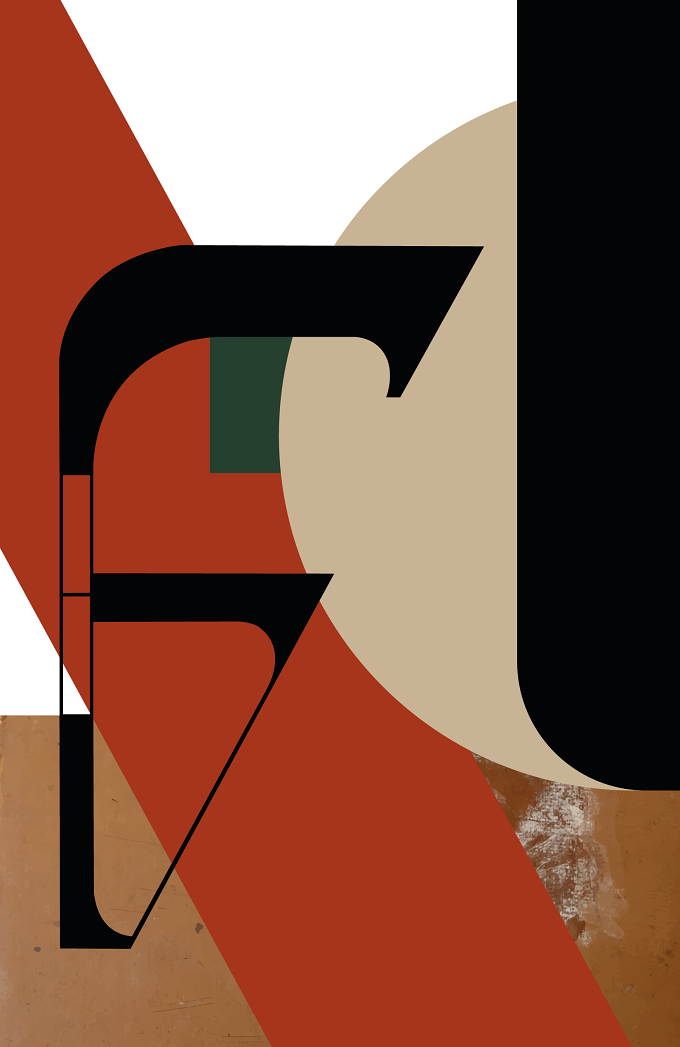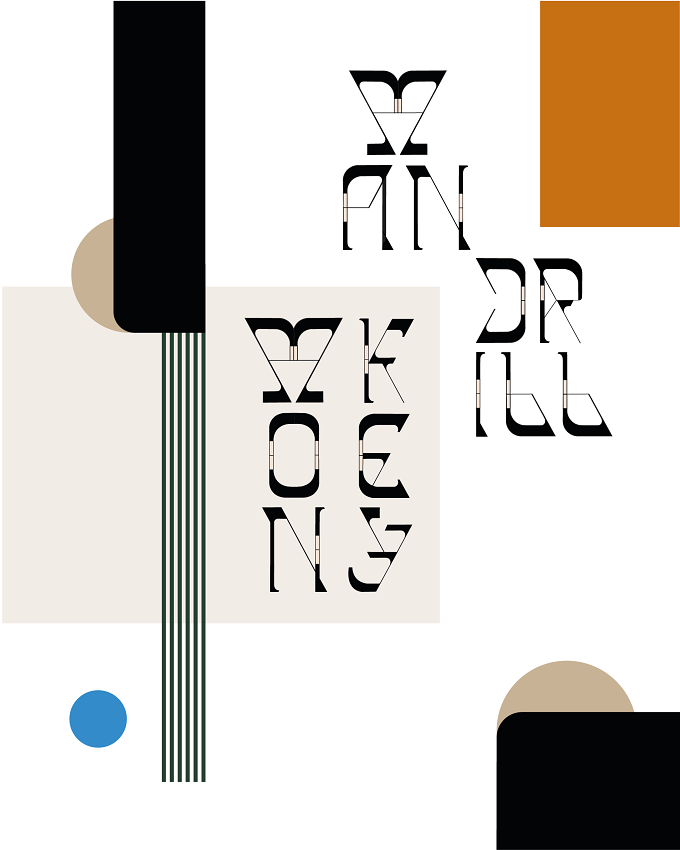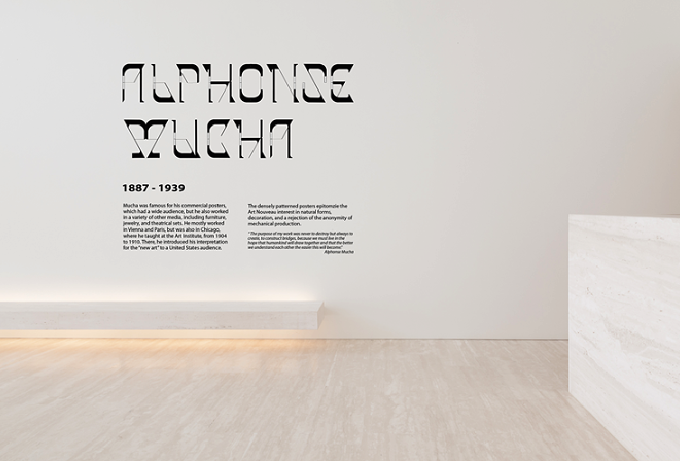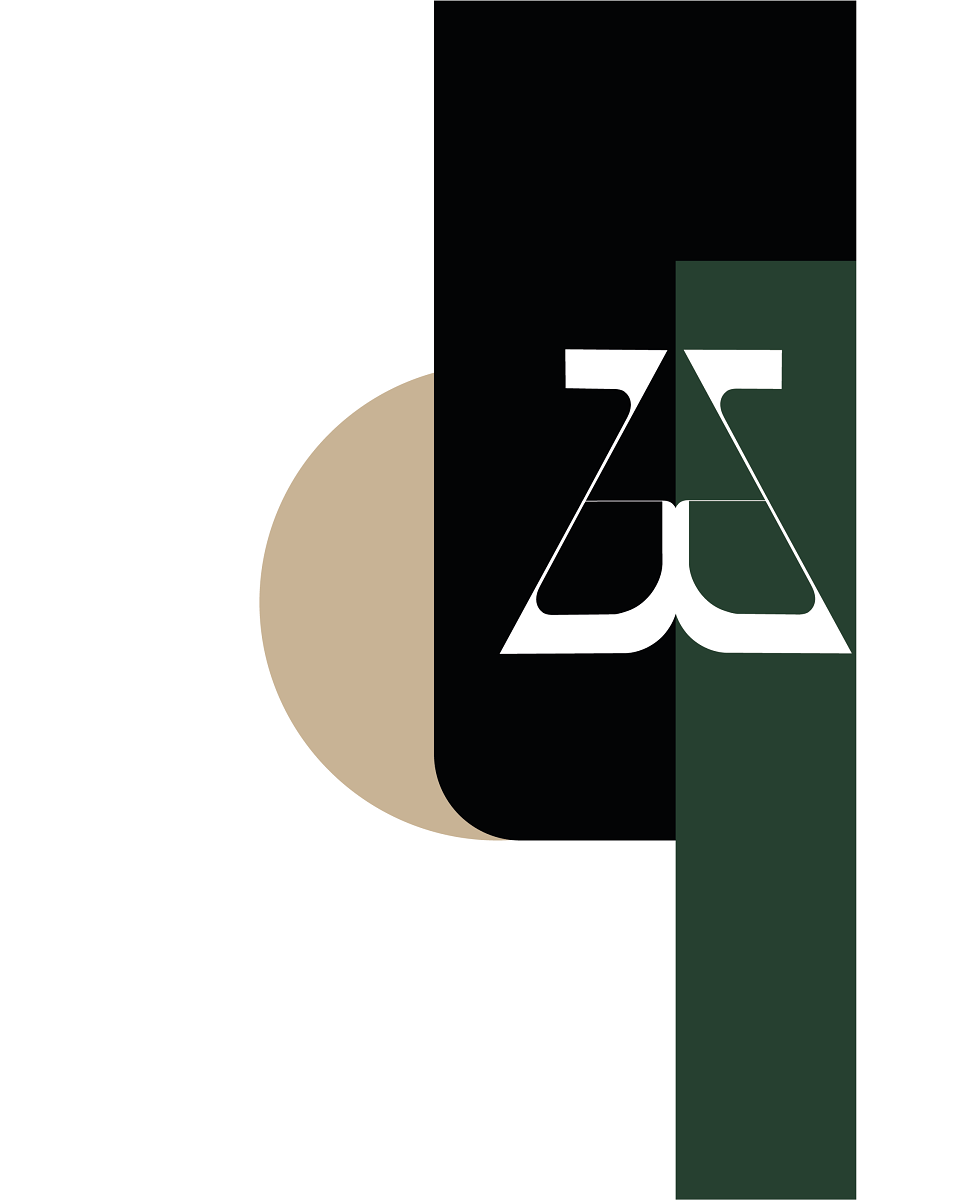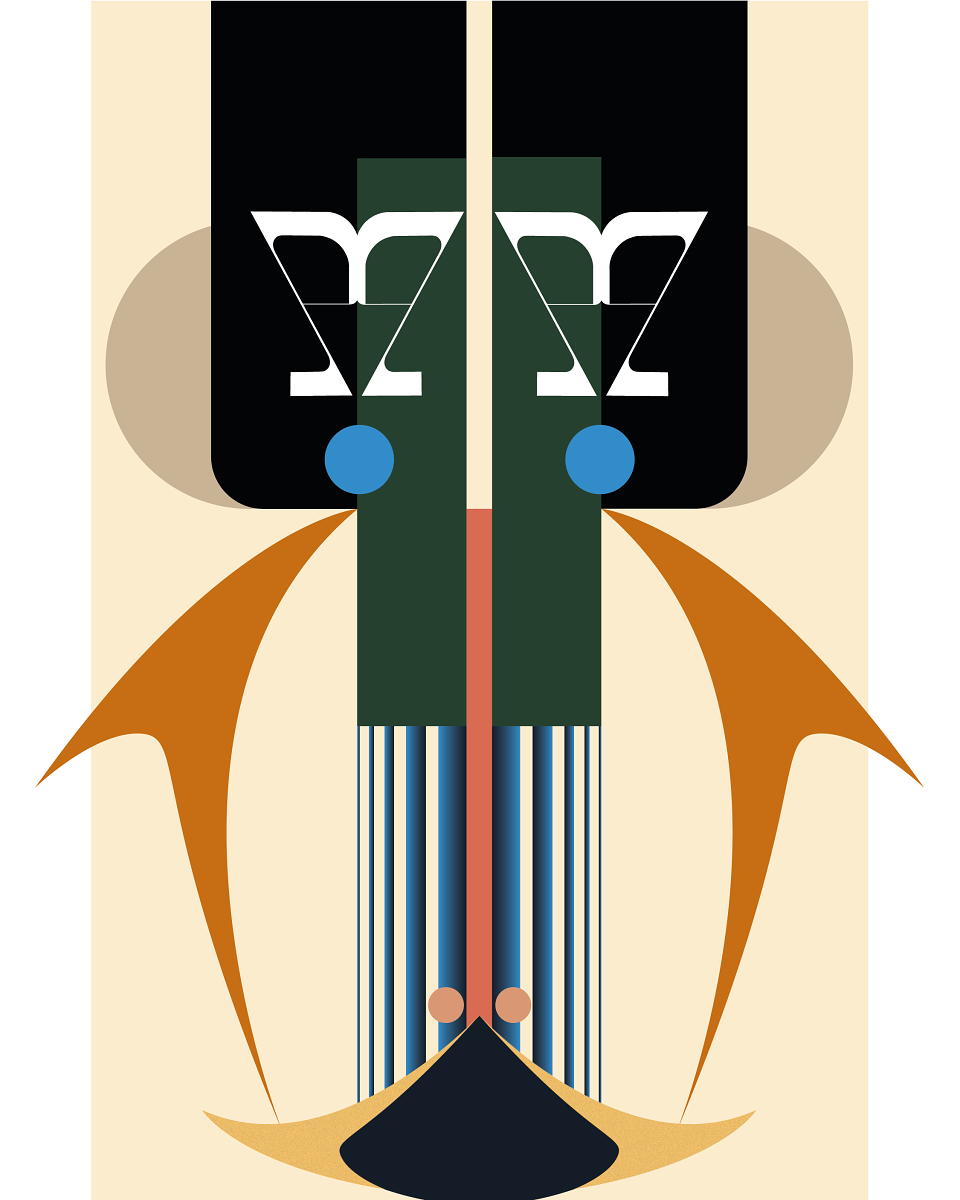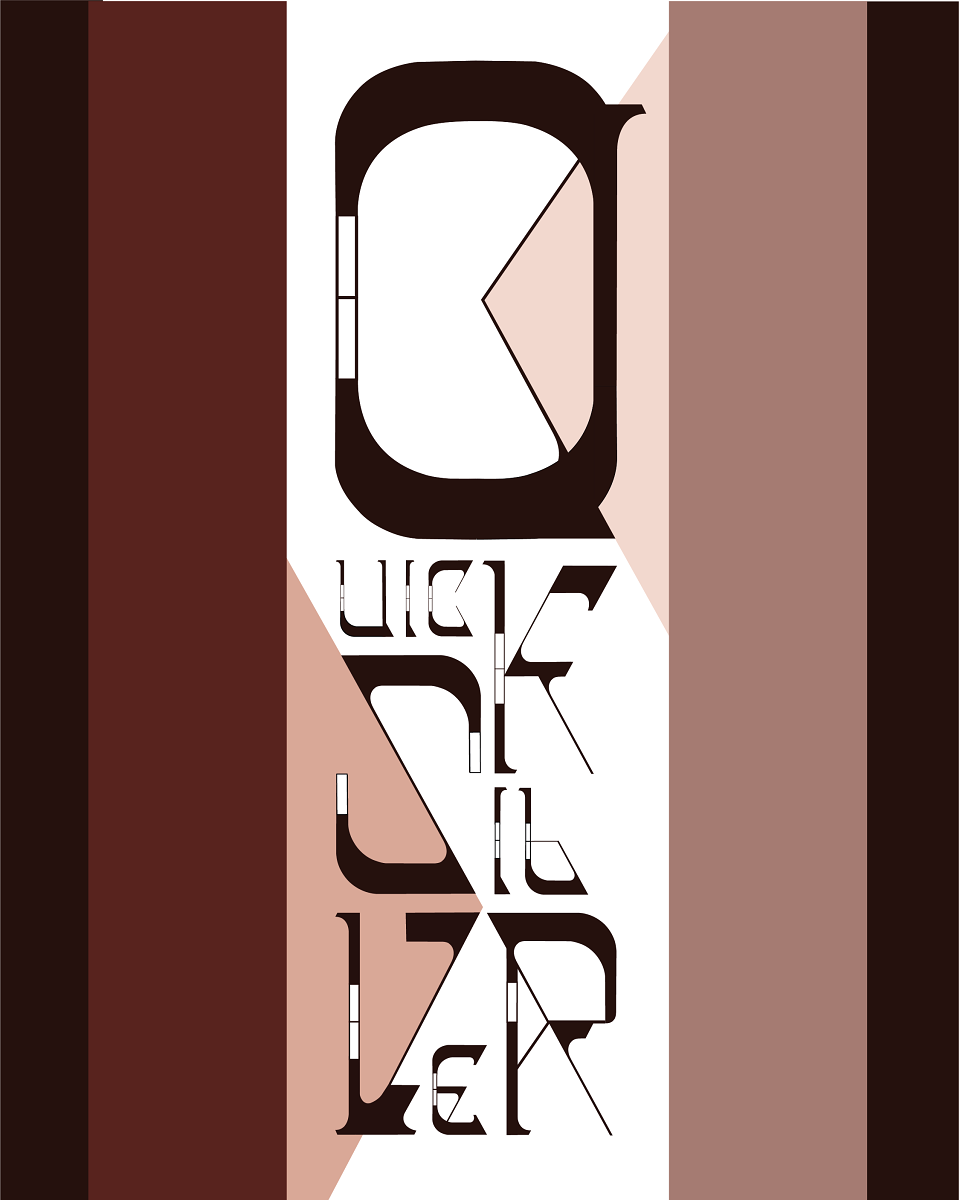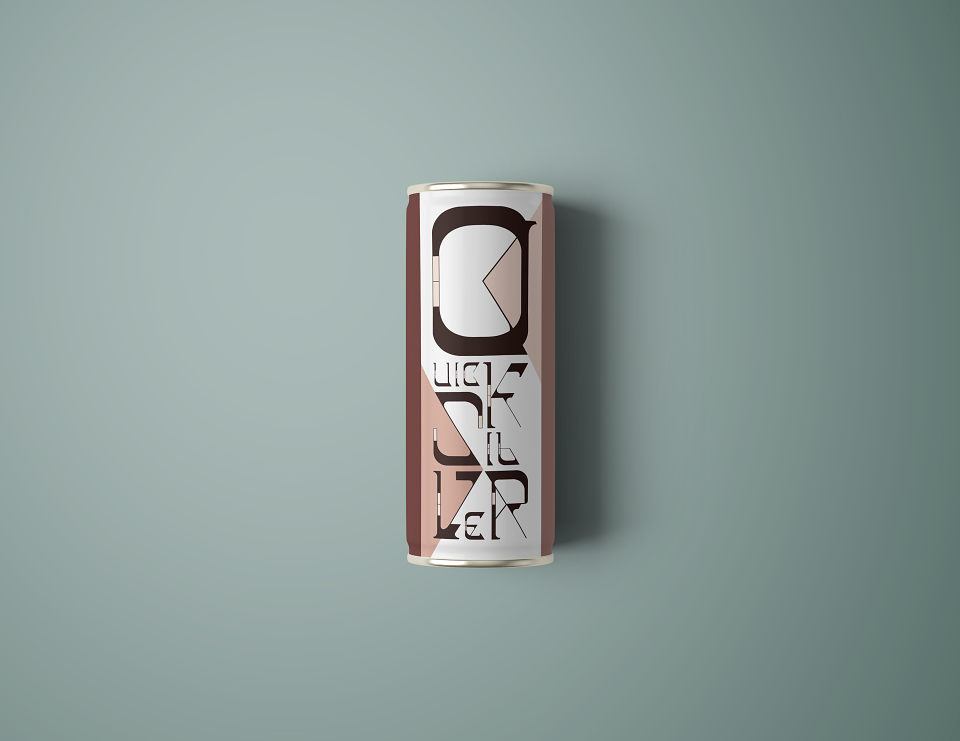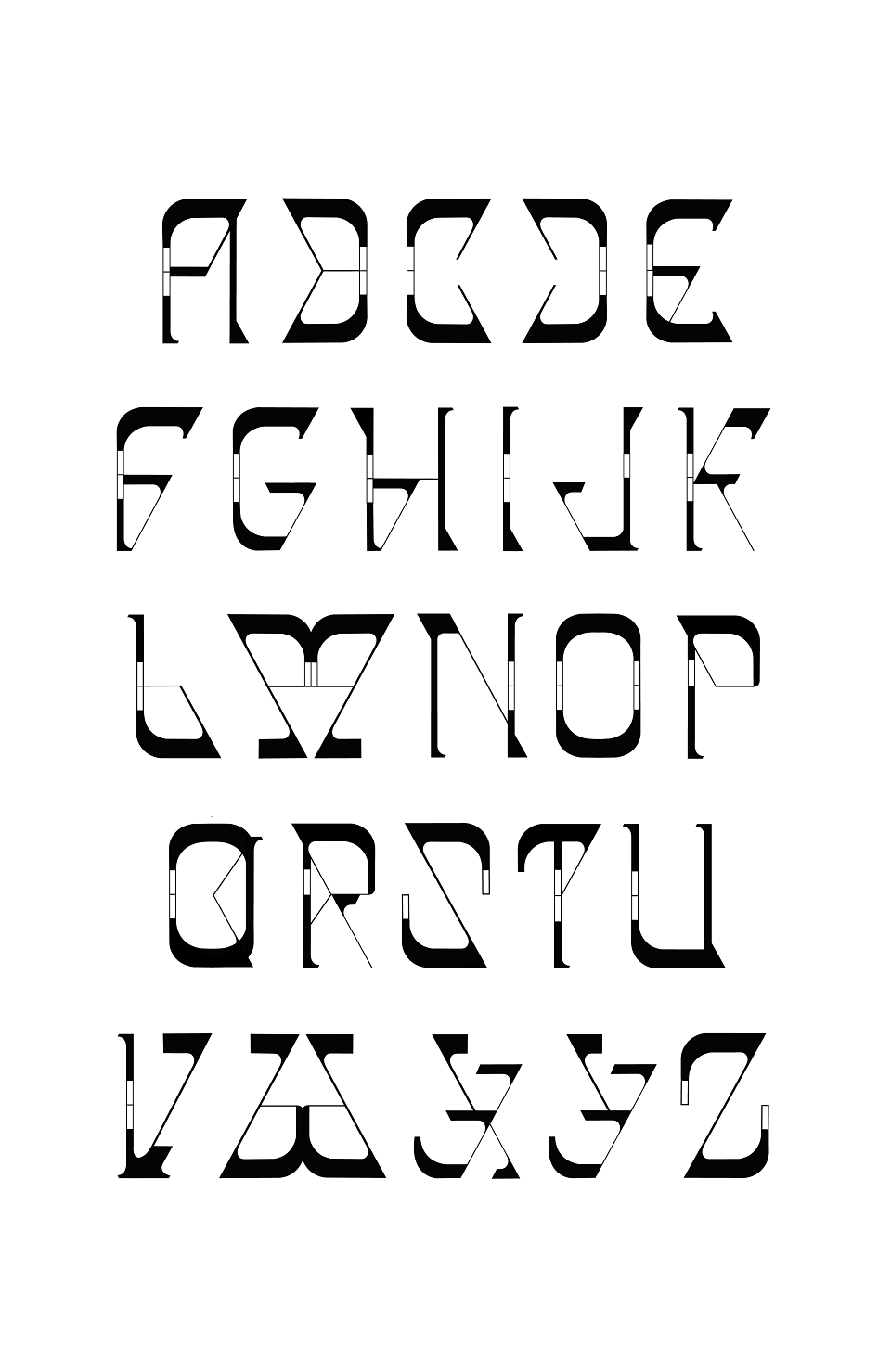
Alphonse is a sophisticated typeface with an Art Nouveau flair.
It combines both organic and geometric forms, balancing between structure and spontaneity.